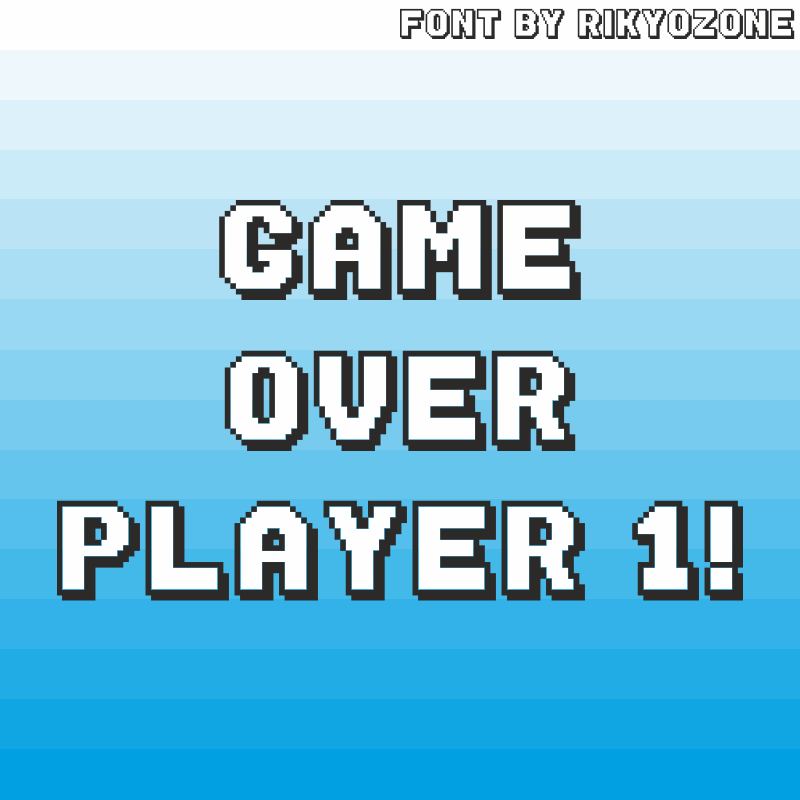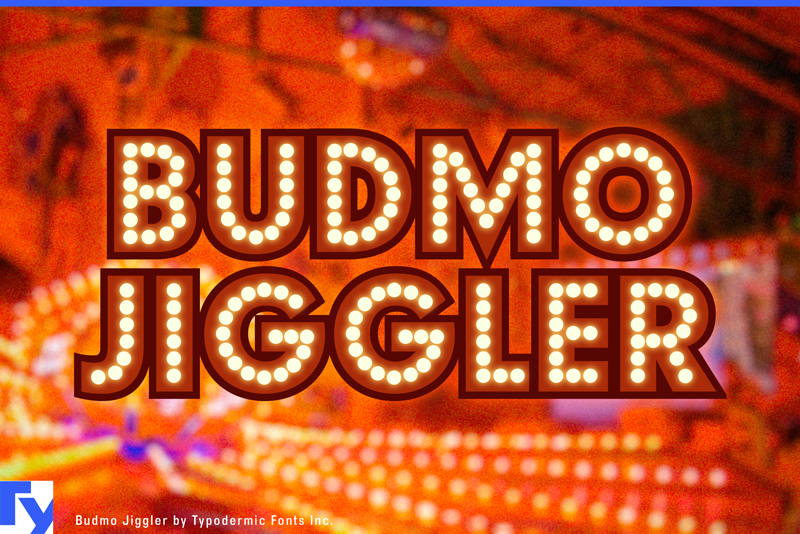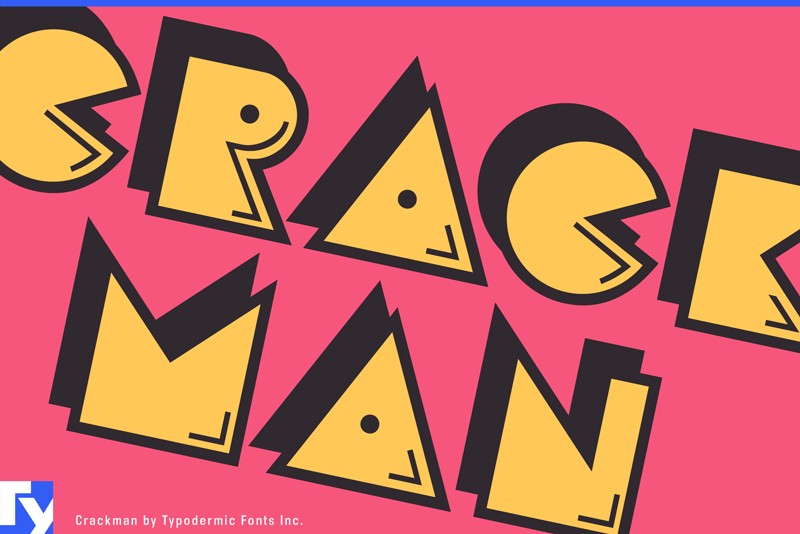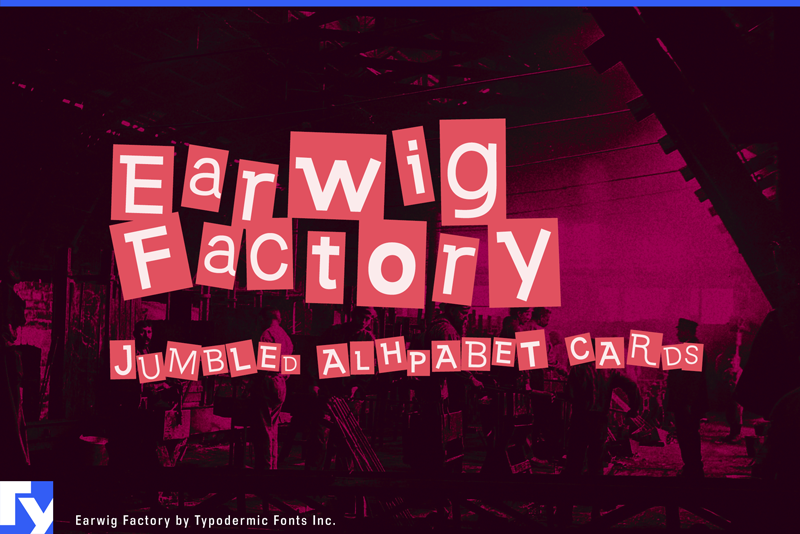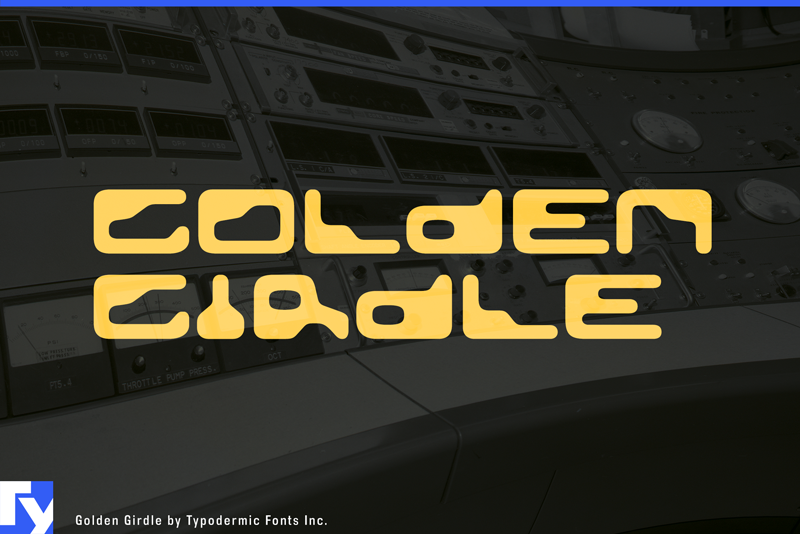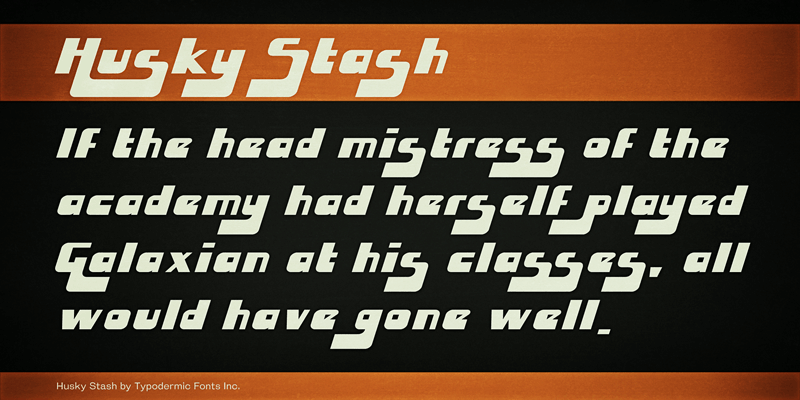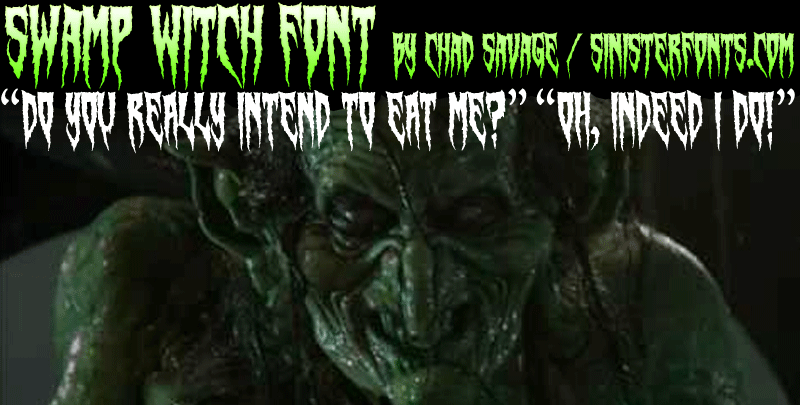
Before you grab a keg and get the party started, make sure your event marketing is on point. Club flyers, party invitations, and other print materials won’t design themselves! But don’t worry—creating an eye-catching flyer doesn’t have to be overwhelming.
To help you craft the ultimate event flyer, we’ve compiled a list of 20 free party fonts that will instantly grab attention and get your audience hyped. These fonts aren’t just flashy—they’re carefully selected by our team for their versatility, energy, and ability to make your designs stand out.
1. Wetware
A font that perfectly blends 60s sensibilities with sci-fi characteristics. Sure to attract attention whatever your event may be.
2. Velvenda
A narrow and dense typeface inspired by jazz album covers from the 1960s. Perfect for intimate, late night event invites.
3. Super Theory
A fun and energetic font that can be used with almost any event
4. Mexcellent
Mexcellent is a bold tri-linear stripe typeface inspired by the 1968 Mexico City Olympics, perfect for event flyers and club invites that radiate athletic energy and global unity.
5. Husky Stash
Full of fresh, funky details reminiscent of the 90s. Best used for throwback gigs or trivia nights.
6. Crackman
This font has elements of art-deco, but there’s no mistaking where its inspiration really lies.
7. Borg 9
This 1980s techno inspired display font gives your event invites a futuristic take that turns heads, human or otherwise
8. Astron Boy
Give your party and event invites a retro-futuristic feel with the rounded-square Astron Boy typeface, which draws inspiration from Astron Belt, a classic vintage laserdisc video game.
9. Earwig Factory
Earwig Factory is a playful, cut-out style font with a scattered, dynamic look, perfect for creating eye-catching invites with a bold, edgy vibe.
10. Budmo
Budmo is a sans-serif marquee-style font inspired by vintage fairground signs, making it perfect for event flyers and club invites that radiate fun and festivity.
11. Cinerama
Taking cues from cinema screens, this typeface is ideal for film viewings and video art installation invites.
12. Unround
This Scrabble-esque typeface exudes fun and quirkiness, which matches well with game nights and themed parties.
13.Rinosaur
Another retro-futuristic albeit whimsical typeface that’s sure to pique interest.
14. Osaka Sans Serif
15. 1UP!
Partying and gaming always go hand in hand, making this font a match made in event invite heaven.
16. Swamp Witch
Hosting a Halloween event or doing some death metal gigs? This font says say no more.
17. Golden Girdie
Golden Girdle is a wide, retro-futuristic display typeface inspired by 1960s magnetic ink fonts, delivering a bold techno aesthetic with a distinctive sci-fi vibe.
18. Vegapunk
A bold sports-inspired font with dynamic slants and unique cutouts, perfect for high-energy club flyers and event invites that demand speed, power, and excitement.
19. F-Zero GX Venue
Perfect for fast-paced and upbeat events like rave shows and boiler room parties.
20. Penguin
This is just too cool not to include, don’t you think?